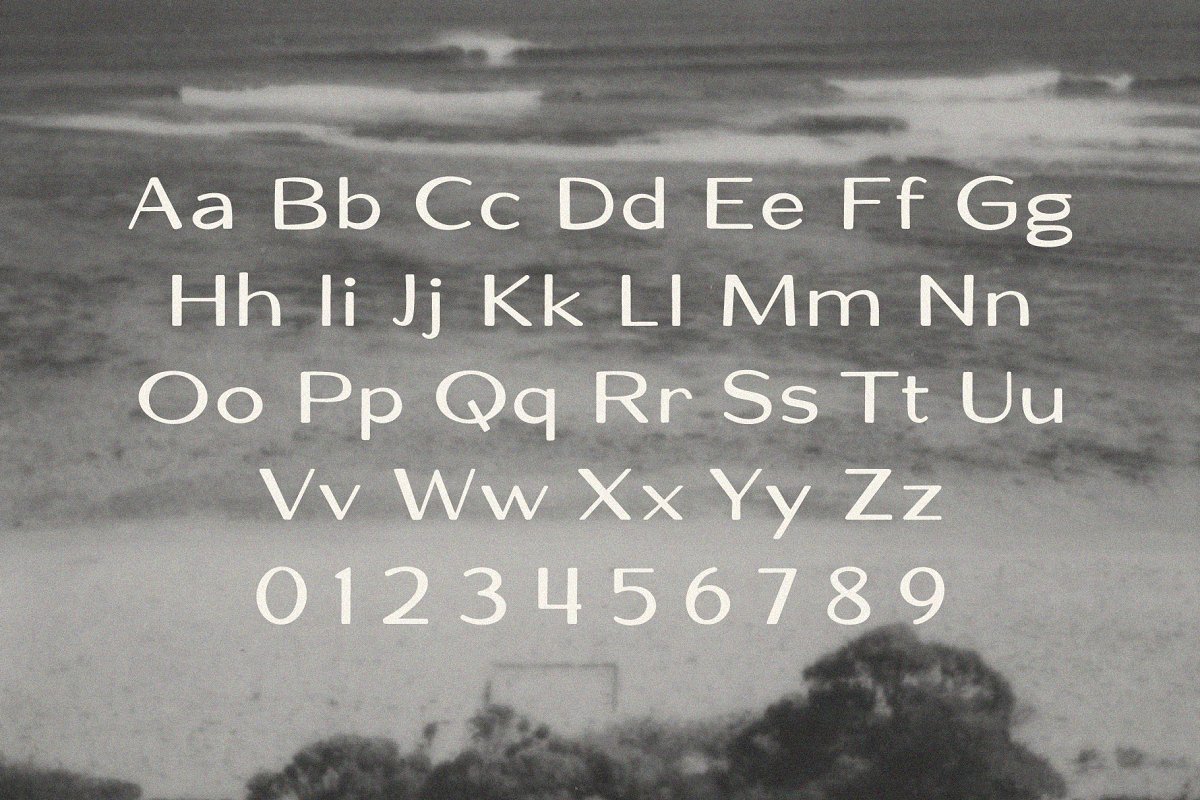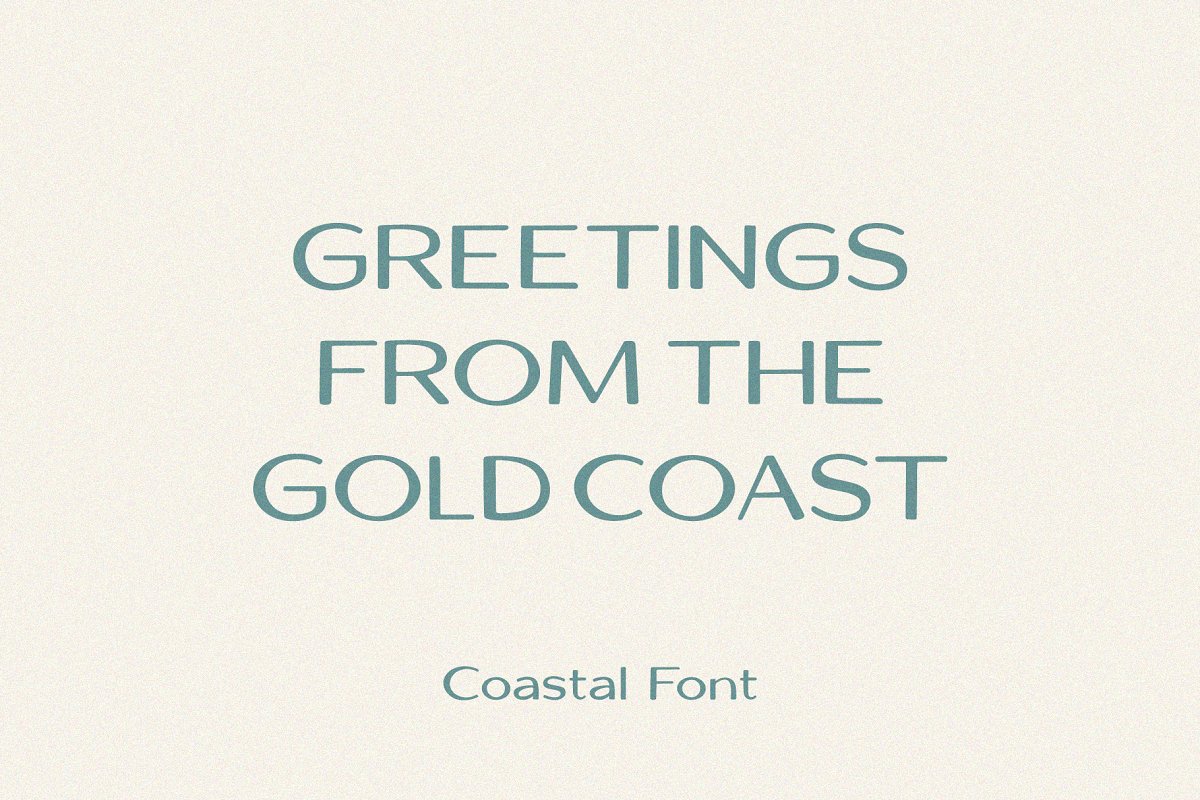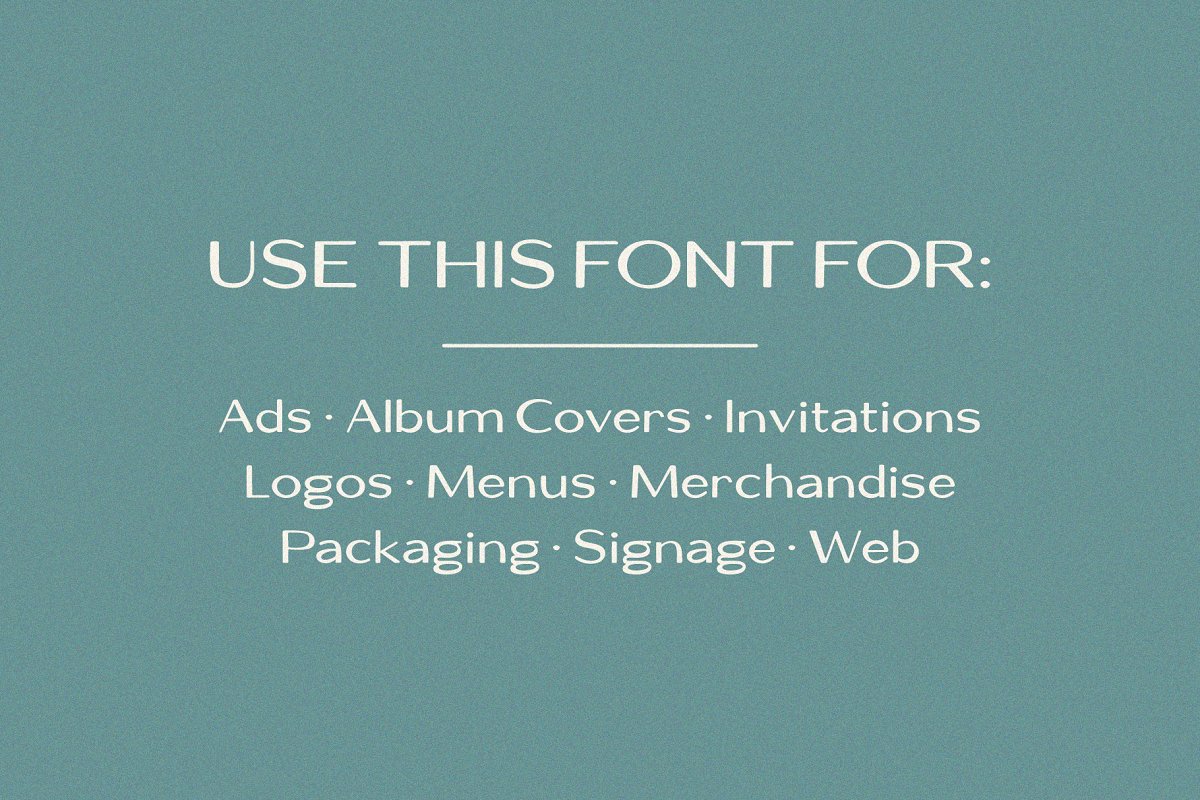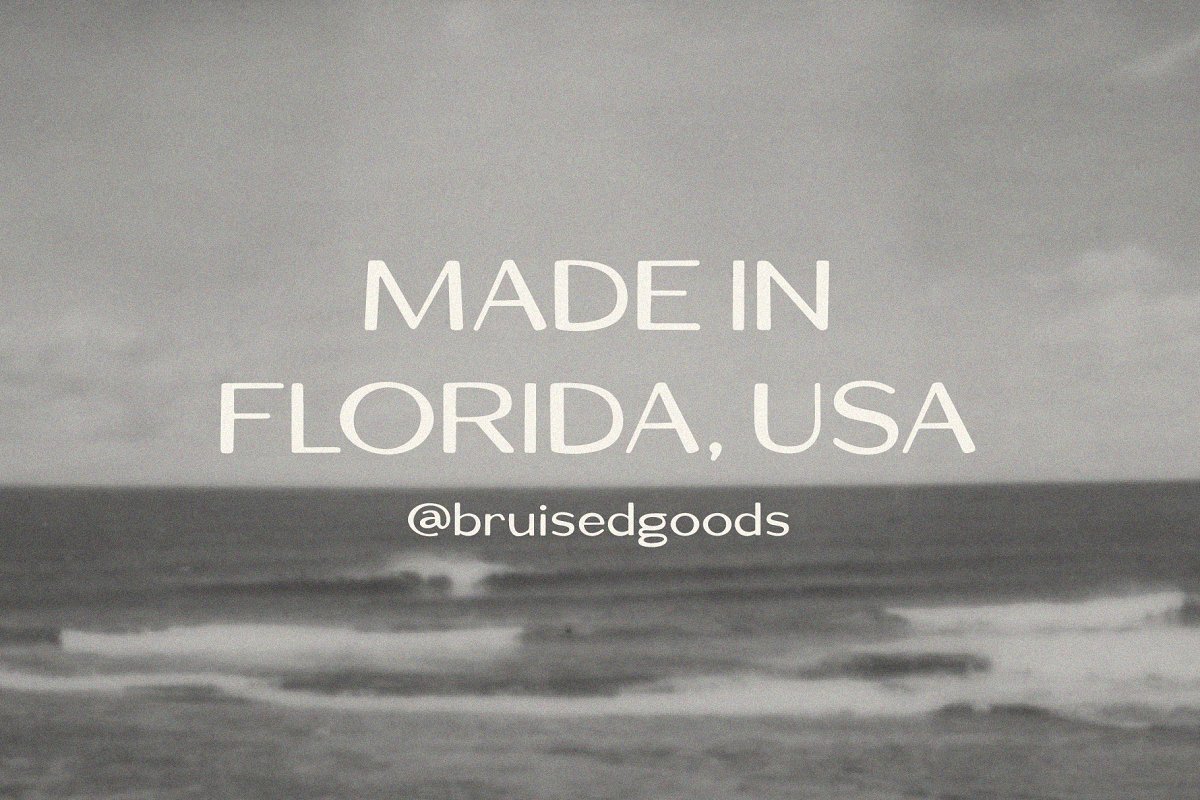
About the Coastal Font
COASTAL – A sleek, hand crafted sans serif, Designed by Lauren Kilbane in sunny south Florida, USA, Use this font for: ads, album covers, apparel, cards, flyers, invitations, logos, menus, merchandise, packaging, signage, web, and more, OTF & TTF filesUppercase and LowercaseStandard English alphabetNumbers, Currency Symbols, Standard PunctuationCOMMERCIAL & EXTENDED LICENSES are required for web fonts, apps, ebooks, broadcast television, commercial exhibition, film, gaming, software embedding, customized print on demand products, etc